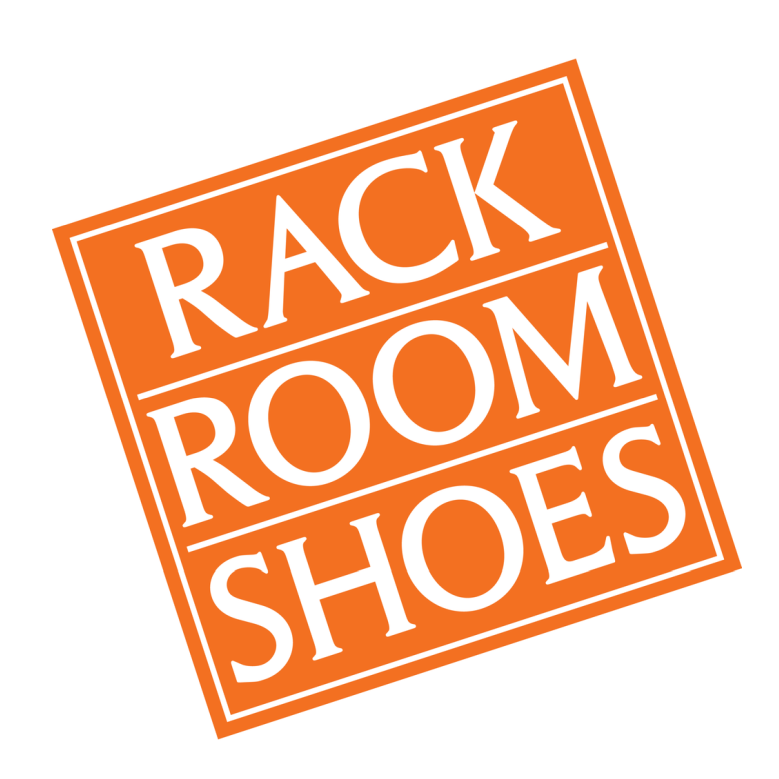
Rack Room Shoes Font
Fonts in UseRack Room Shoes is a retail chain of footwear stores founded in 1920 by Phil Levinson. The company is based in Charlotte, North Carolina, and operates over 450 stores in 34 states in the United States.
The shoe company's logo font is Columna Solid Rounded, a classical Roman-inspired typeface designed by Swiss type designer Max Caflisch, and featuring all-caps characters.